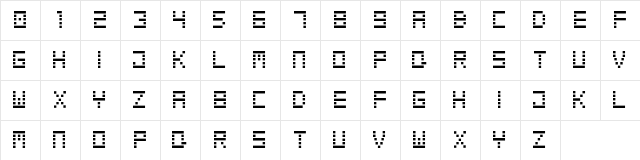
Dematerialise Regular
| Foundry | Nicola Buccarano |
Design Context for Dematerialise Typeface
Dematerialise is a composed and adaptable typeface that performs quietly and consistently across a wide range of design contexts.